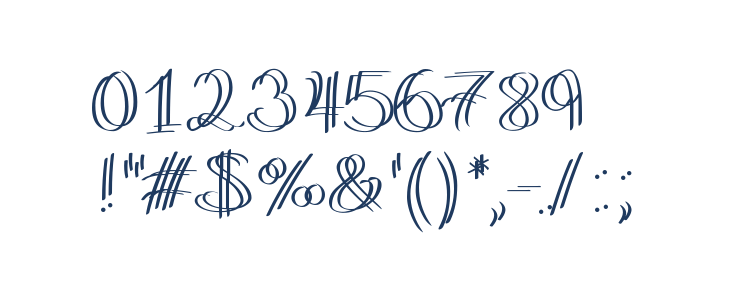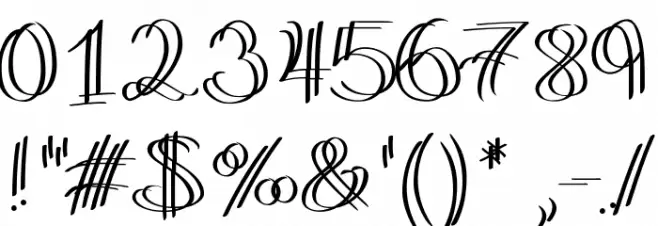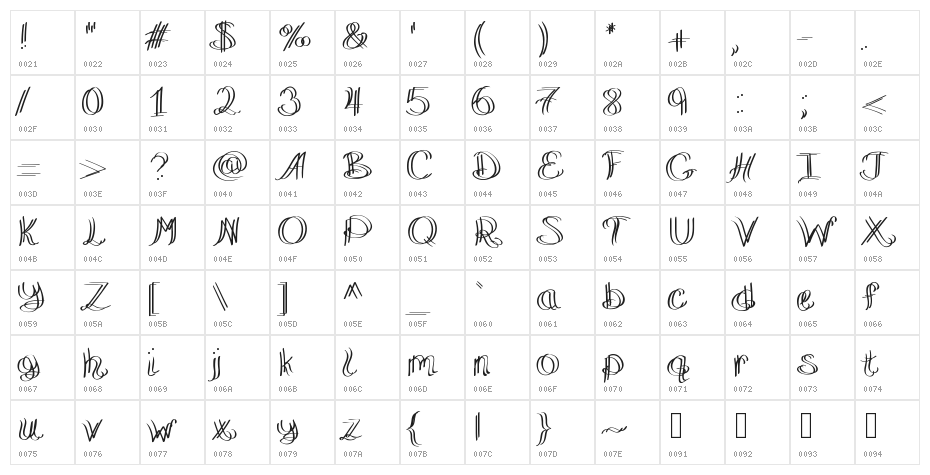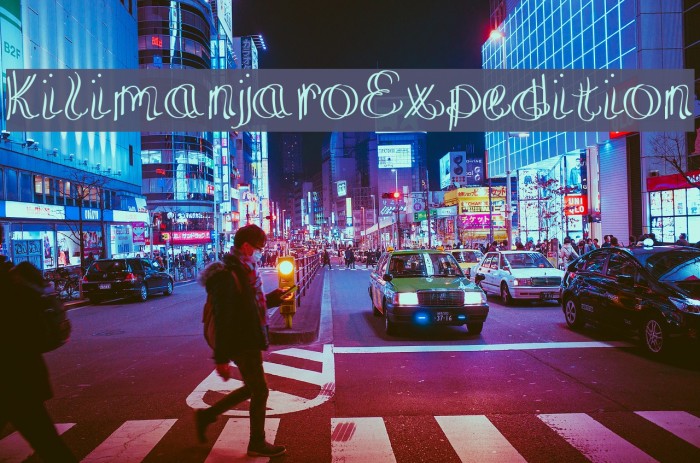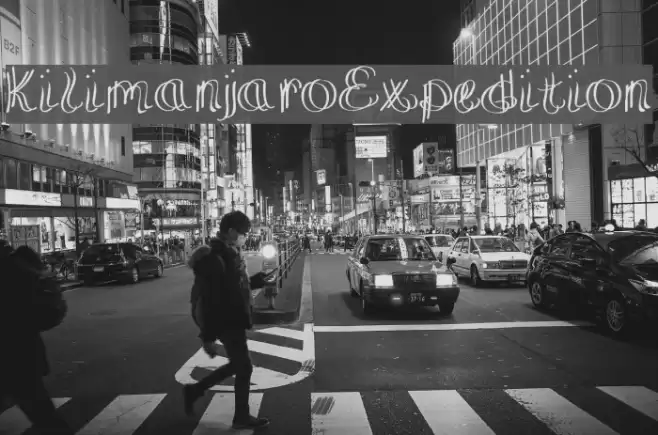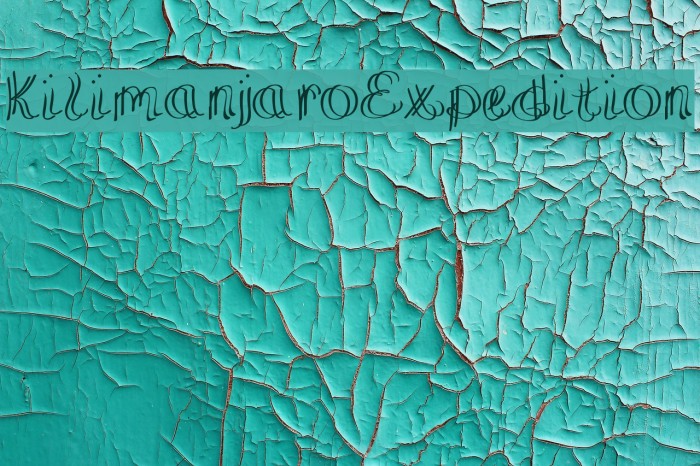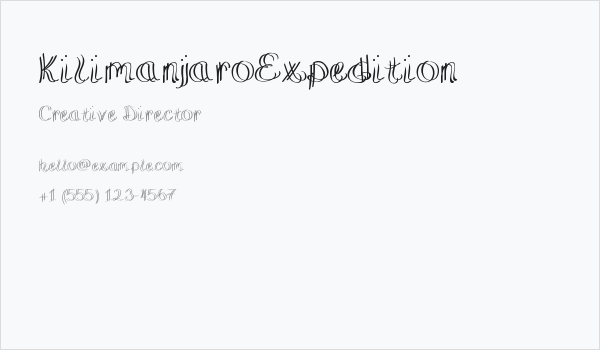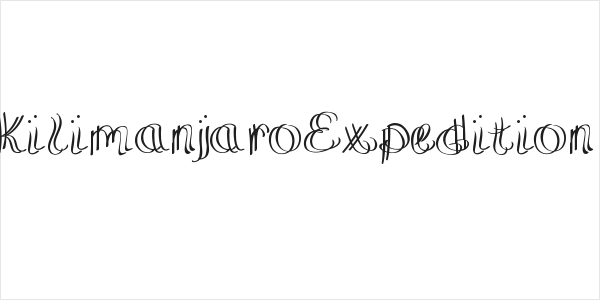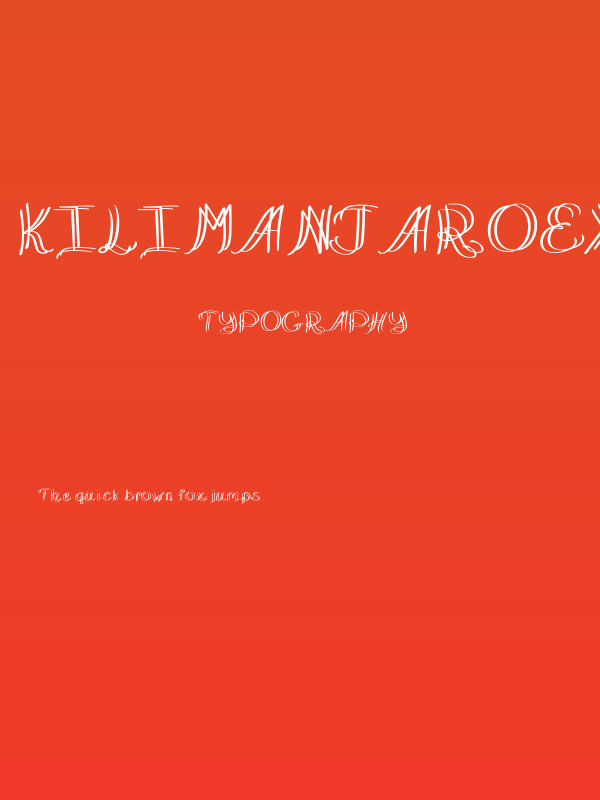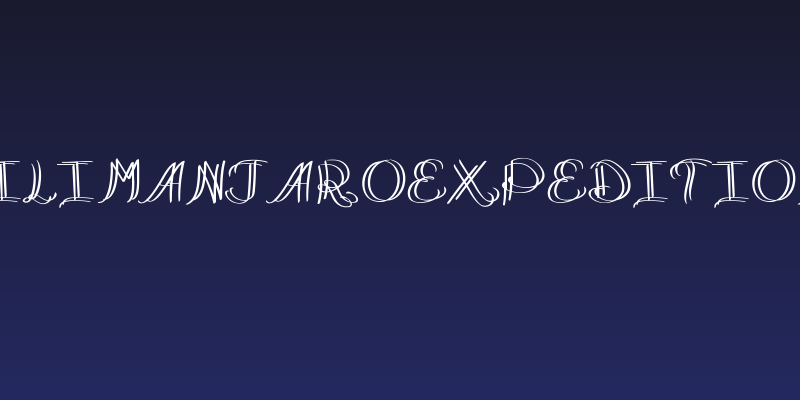
KilimanjaroExpedition Font
KilimanjaroExpedition Description
This font features a unique and artistic design with a hand-drawn appearance. The characters are embellished with intricate loops and swirls, giving it a whimsical and decorative style. The uppercase letters are bold and expressive, while the lowercase letters maintain a consistent flow with a slightly more delicate touch. Numbers and special characters follow the same ornate pattern, ensuring a cohesive look across all glyphs. The overall design is playful yet elegant, making it suitable for creative projects that require a touch of flair.
| Proposed Projects | Ideal for invitations, greeting cards, artistic posters, and branding that requires a creative and playful touch. |